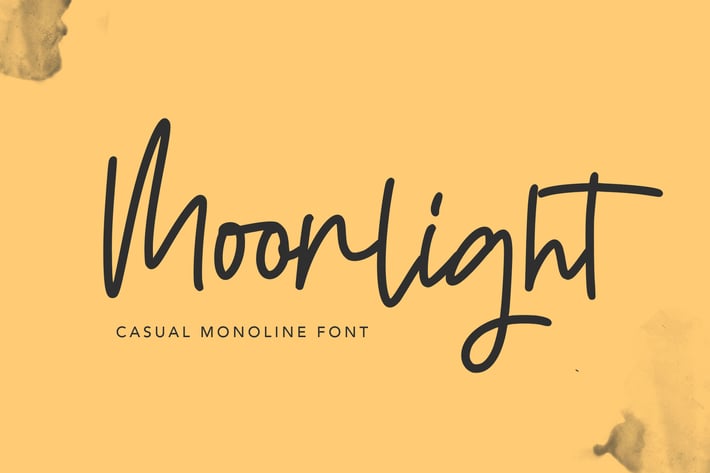
Moonlight | Casual Monoline Font
Moonlight | Casual Monoline Font with a calligraphy style, So beautiful on invitation like greeting cards, branding materials, business cards, quotes, posters, and more!